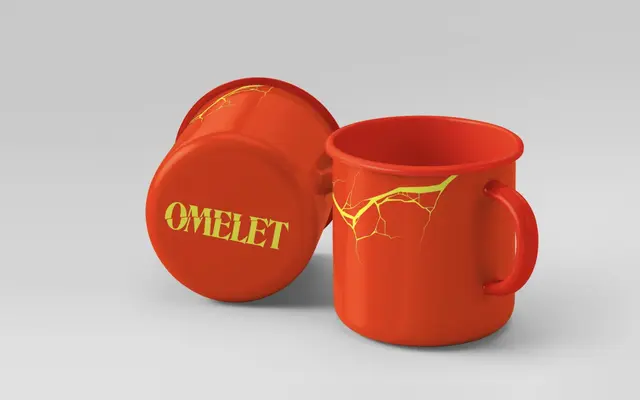
Roslindale
David Jonathan Ross · 2017
A revival of De Vinne, the 1890s American serif, redrawn by David Jonathan Ross into a variable type system spanning text to display across three widths and nine weights.
Born from a single Condensed Bold sent to DJR's Font of the Month Club in 2017, Roslindale has grown into a conical design space with Text, Display, Narrow, and Condensed subfamilies sharing a single variable axis for slant, width and weight. The typeface smooths De Vinne's lumpy Victorian forms while preserving the friction between its sharp serifs and round terminals, a combination that reads as simultaneously plain and decorative. Its italic transitions progressively from sloped roman to fully cursive, and the variable slant axis lets designers dial in precise degrees of italicness.
Roslindale is rooted in De Vinne, an 1890s old-style serif with Victorian characteristics, marked by a tension between sharp stubby serifs and round bulbous terminals with hints of diagonal stress. DJR classifies it as an old-style serif but acknowledges its Victorian origins resist that label.